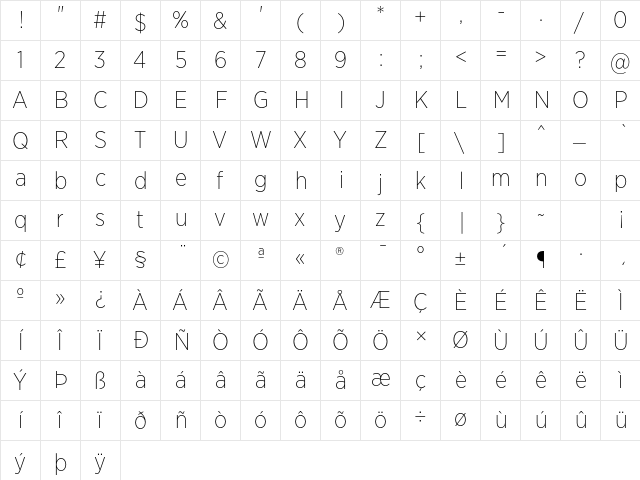
Gotham Narrow Extra Light Font Preview
| Foundry | Hoefler & Frere-Jones |
| Designer | Hoefler & Frere-Jones |
Design Context for Gotham Narrow Typeface
Gotham Narrow takes a measured approach to typography — its balanced proportions and neutral character make it a reliable workhorse for both digital and print work. Its slender proportions lend an understated elegance to any composition. The condensed width makes it efficient for tight spaces without sacrificing legibility.